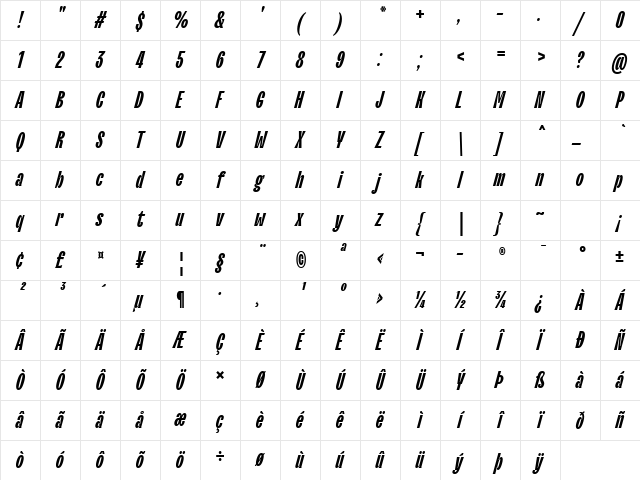
TT Trailers Trial Bold Italic Free Font
TT Trailers Trial Bold Italic
Designer: Designed by Ivan Gladkikh, Vika Usmanova, Yulia Gonina, Kirill Maslov, Antonina Samokhina, Lada Sobchenko. Technical designers Yuriy Nako, Victor Rubenko.
Complete TT Trailers Trial Bold Italic glyph index. Displaying only characters natively supported by TT Trailers Trial Bold Italic font.
Design Context for TT Trailers Trial
TT Trailers Trial is a composed and adaptable typeface that performs quietly and consistently across a wide range of design contexts. The slanted form adds forward momentum and visual energy. Its bold stroke weight gives it real presence on the page.
Pro Tip: Use TT Trailers Trial for emphasis, pull quotes, and subheadings where its slanted energy can add rhythm to the layout.